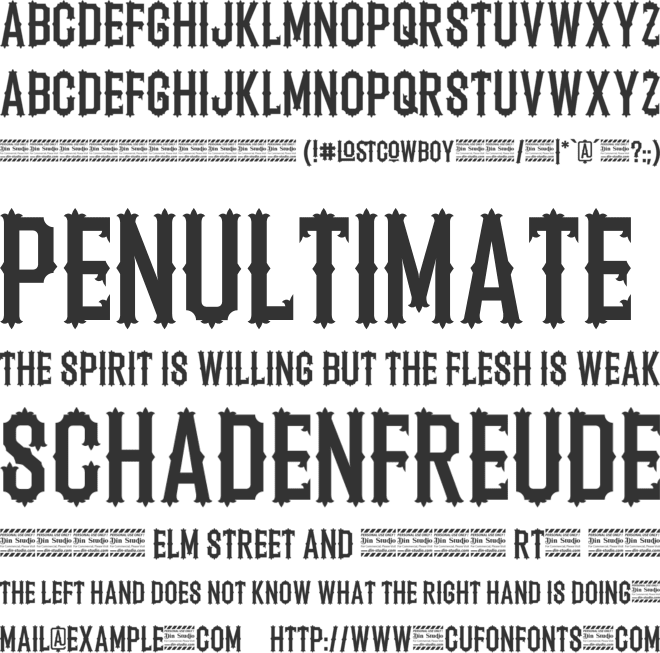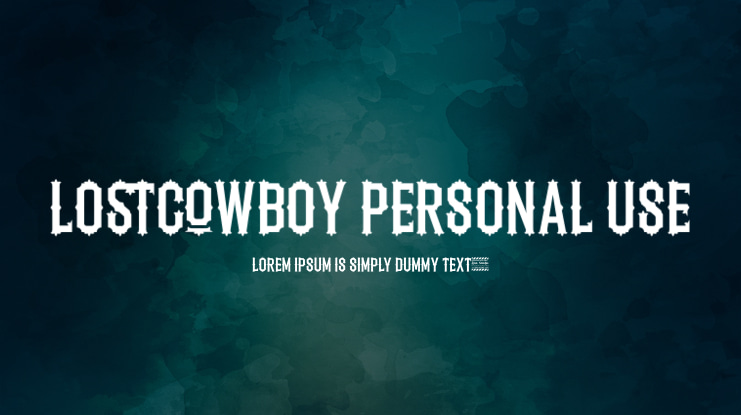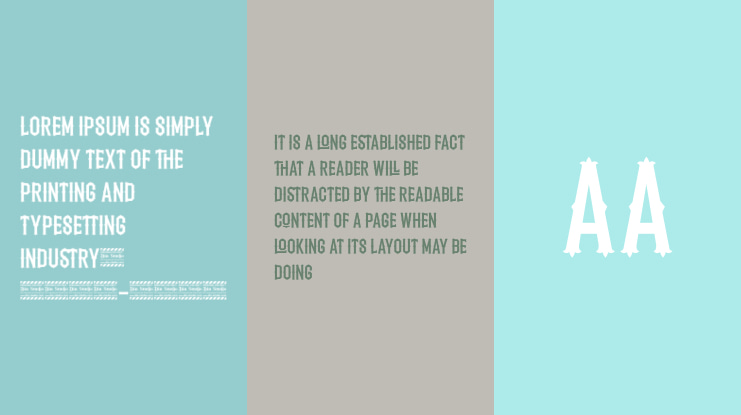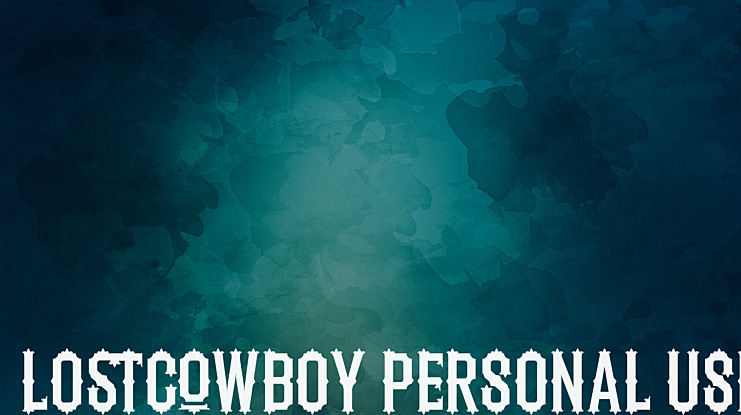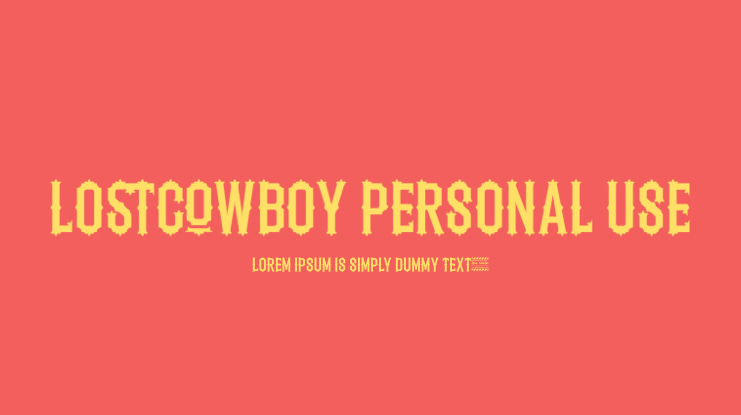
Lostcowboy vintage font is a typeface that is made all characters in uppercase. An excellent choice to add the right amount of retro touch. This typeface with artistic style looks very interesting for loads of different projects and promotions. Suitable for any graphic designs such as logo, book cover, poster, t-shirt, branding, and advertisement needs.